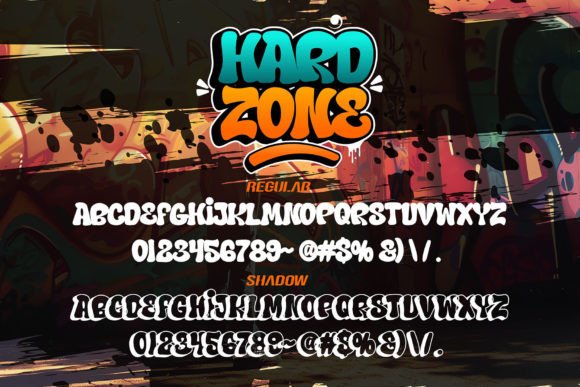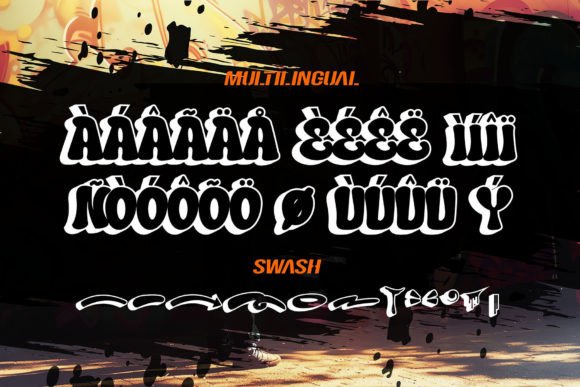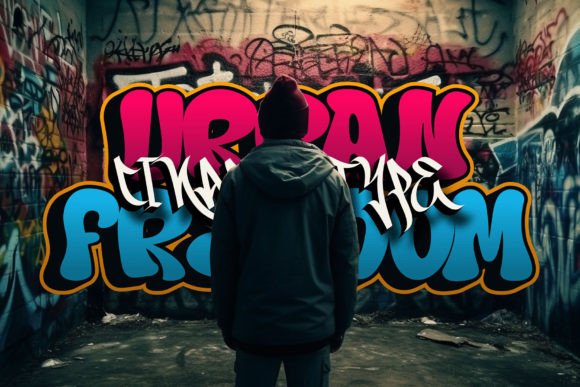
Hard Zone Font
Introducing Hard Zone – a remarkably 3D layered graffiti font packed with regularly crafted letters and sweeping swashes. Shadows blend cleverly with every character, giving your designs an instant feel of power and dynamism. Ideal for street-inspired ventures, assertive headlines, and mesmerizing ad copies, Hard Zone never fails to be attention-grabbing.The sophisticated layering and shadow play an illusion of depth and a 3D vibe that notably uplifts the visual appeal, ensuring your text isn’t just read, but remarkably observed. With its blend of versatility and a raw edgy appeal, Hard Zone is the go-to font for projects craving an influential and urban flair.